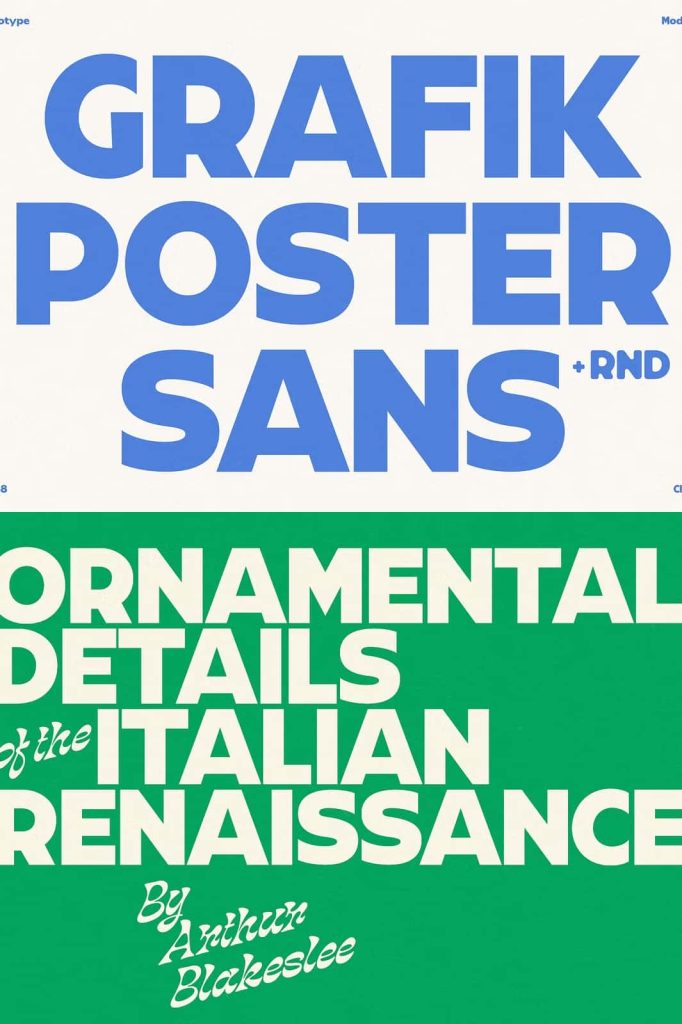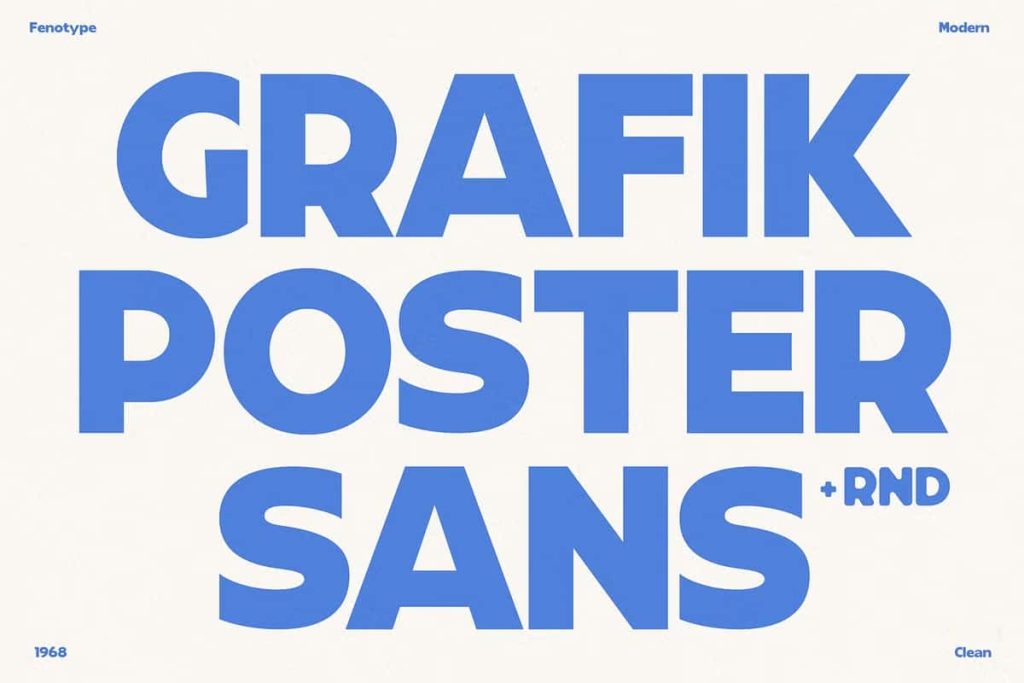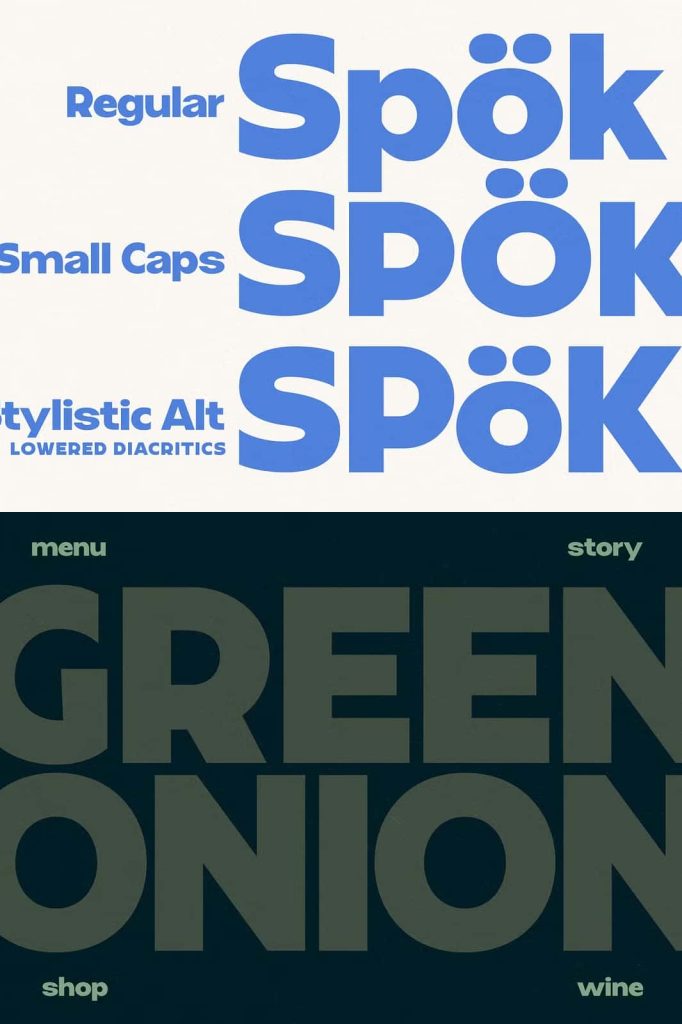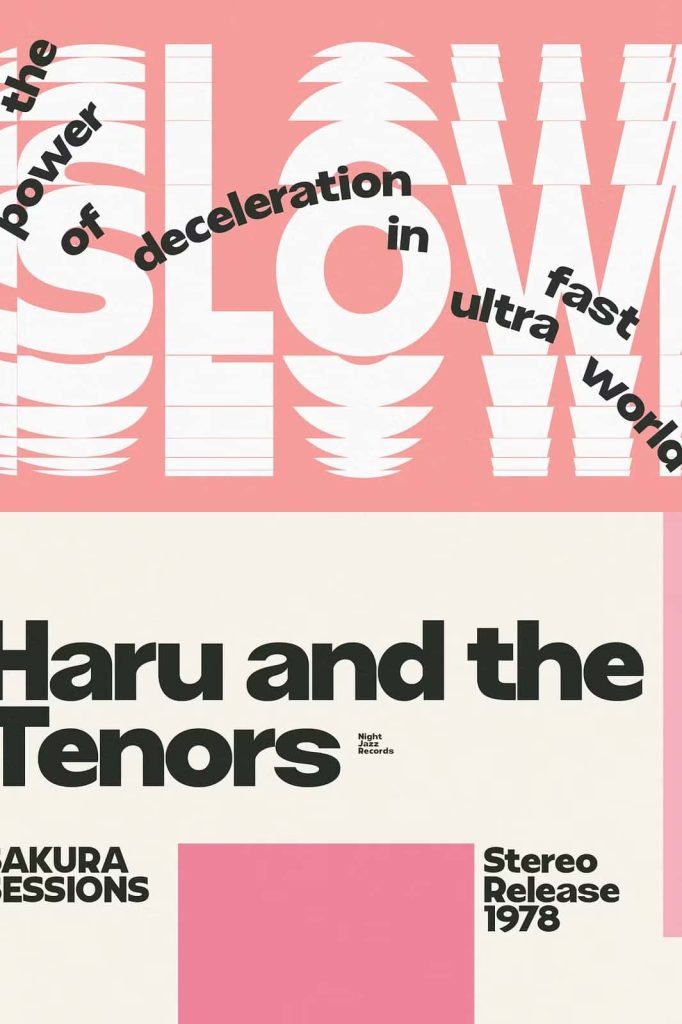
Grafik Poster Sans: A Bold Display Sans Serif Font Inspired by Retro Design
Grafik Poster Sans is a bold and expressive display sans serif font that draws strong inspiration from the graphic design movements of the 1960s and 1970s. This era was defined by confident typography, experimental layouts, and striking visual statements, and Grafik Poster Sans successfully translates those qualities into a modern typeface. Designed for impact and clarity, this font is built to stand out in contemporary design projects while still honoring classic typographic traditions.
A Fusion of Classic and Modern Typography
What makes Grafik Poster Sans unique is its ability to combine features from multiple typographic styles into one cohesive and powerful design. Rather than copying a single historical reference, the font blends retro aesthetics with modern structure, resulting in a typeface that feels both familiar and fresh. The bold letterforms deliver a strong visual presence, while the clean sans serif construction ensures excellent readability at large sizes.
This balance allows Grafik Poster Sans to work across a wide range of creative contexts. Designers can rely on its vintage-inspired personality without sacrificing the precision and consistency required in modern digital and print workflows. The result is a versatile display font that communicates confidence, energy, and visual authority.
Designed for Posters, Headlines, and Display Use
Grafik Poster Sans excels in display-focused applications. Its bold weight and confident proportions make it ideal for posters, headlines, banners, and large-format typography. When used in these settings, the font immediately captures attention and communicates messages with clarity and impact.
Whether applied to event posters, album covers, editorial headlines, or branding materials, Grafik Poster Sans helps text become a central visual element rather than a supporting detail. The font’s strong shapes and tight spacing allow designers to create compact yet powerful text blocks that hold visual weight within any layout.
Optimized for Strong Visual Hierarchy
In editorial and marketing design, establishing a clear visual hierarchy is essential. Grafik Poster Sans supports this by delivering strong contrast between headlines and body text. When paired with a neutral text font, it creates a dynamic and engaging typographic system that guides the reader’s attention naturally through the content.
This makes it especially effective for magazines, websites, advertisements, and promotional graphics where bold messaging needs to stand out instantly.
Advanced Typographic Features for Creative Control
Grafik Poster Sans is equipped with carefully designed typographic features that enhance both aesthetics and usability. One of its standout features is the lowered uppercase diacritics, available through Stylistic Alternates. This thoughtful design choice allows designers to create tighter text boxes without compromising legibility or visual balance.
These alternates are particularly useful when working with multilingual content or compact layouts where spacing efficiency matters. By lowering the diacritics, the font maintains a clean and consistent cap height, resulting in more polished and professional-looking typography.
Ideal for Tight Layouts and Bold Compositions
The ability to control diacritic placement makes Grafik Poster Sans especially valuable for poster design, packaging, and branding projects where space is limited. Designers can confidently stack text, align headlines, and build strong compositions without worrying about awkward spacing or visual clutter.
This level of control empowers creative professionals to push layouts further while maintaining typographic integrity.
A Versatile Choice for Modern Designers
Grafik Poster Sans is more than just a retro-inspired font. It is a practical, modern display typeface designed to meet the demands of today’s creative industry. Its bold presence, stylistic flexibility, and advanced features make it suitable for both print and digital applications.
From bold branding concepts to expressive editorial design, Grafik Poster Sans provides designers with a reliable and visually striking tool. By combining the spirit of 60s and 70s graphic design with contemporary typographic standards, this font delivers timeless appeal and modern performance.
If you are looking for a display sans serif font that commands attention, supports creative experimentation, and delivers professional results, Grafik Poster Sans is a powerful choice for your next design project.